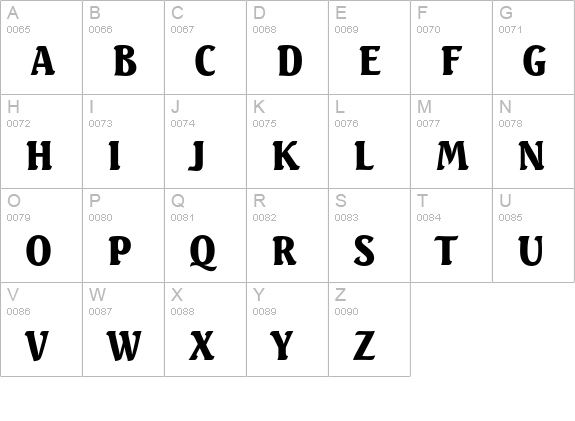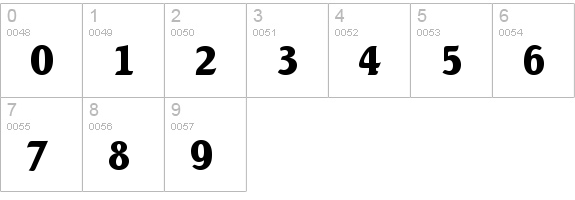
Seagull Heavy is a heavy, high-impact variant in the Seagull typeface family \xE2\x80\x94 well suited to high-impact headlines, posters, and display advertising.
Seagull Heavy font is a bold and powerful typeface that commands attention with its strong and sturdy appearance. Designed with a touch of elegance, this font is perfect for making a statement in headlines, titles, and logos. Its wide and bold letterforms give it a distinct presence, ensuring that your message stands out and leaves a lasting impression. With its generous curves and strong lines, Seagull Heavy font exudes confidence and professionalism. It is versatile enough to be used in a variety of design projects, from branding and packaging to posters and signage. Whether you're designing for print or digital media, this font will effortlessly elevate your work and add a touch of sophistication. One of the best things about Seagull Heavy font is that it is freely available to download at FontsMarket.com. This means that you can easily access and use this font in your projects without any restrictions. Its availability for free download makes it a valuable asset for designers and creatives looking to add a high-quality and visually striking font to their collection. Seagull Heavy font is a true gem for anyone in search of a bold and eye-catching typeface that combines strength and elegance. Its timeless appeal and professional aesthetic make it a must-have for designers in need of a versatile and impactful font. Download Seagull Heavy font for free at FontsMarket.com and let your creativity soar to new heights.